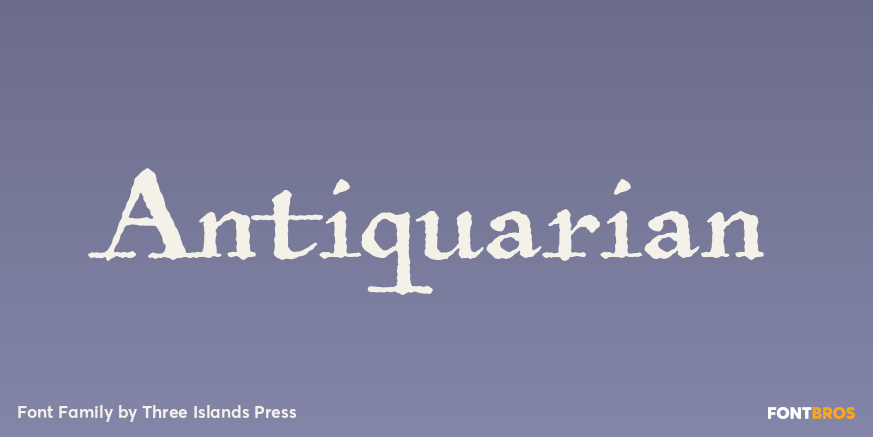
Antiquarian
The titles struck me as handsome — the titles and captions and place labels on a page I have of Henri Abraham Chatelain\’s Atlas Historique. I\’d already modeled Antiquarian Scribe after the neat, slanted penmanship used in the body text of Chatelain\’s…